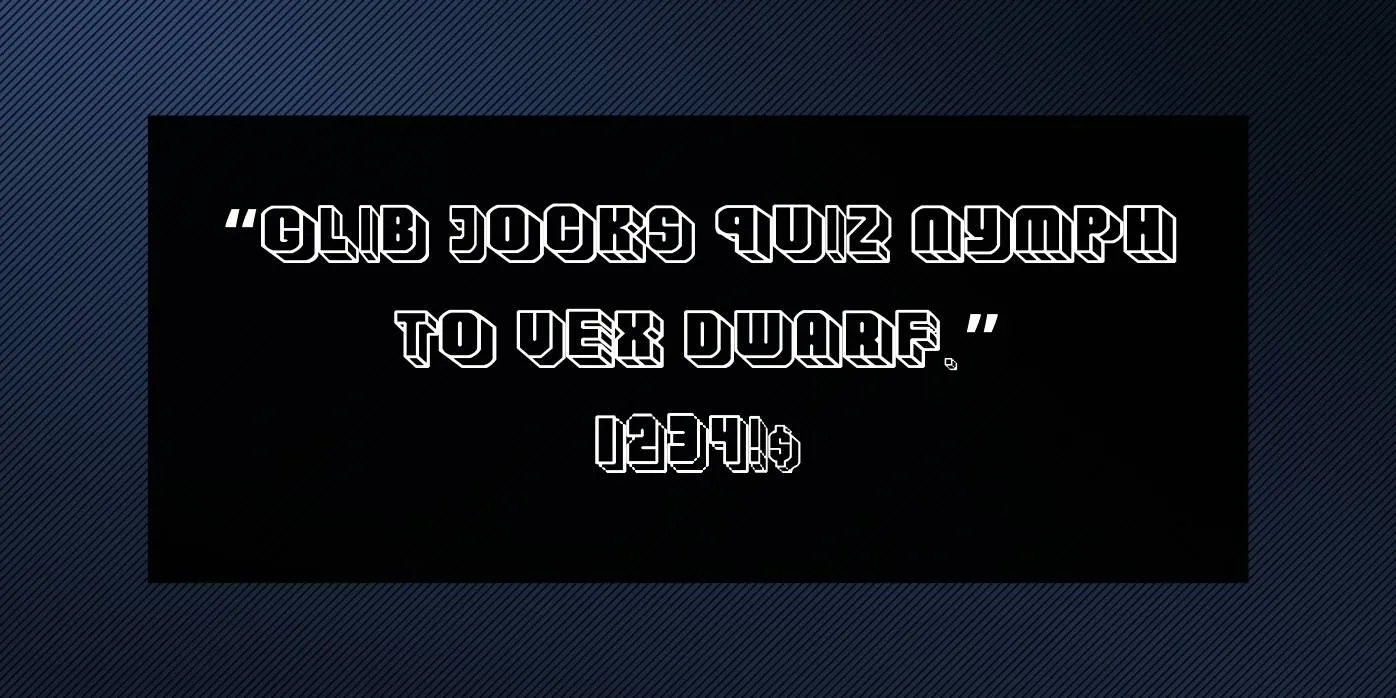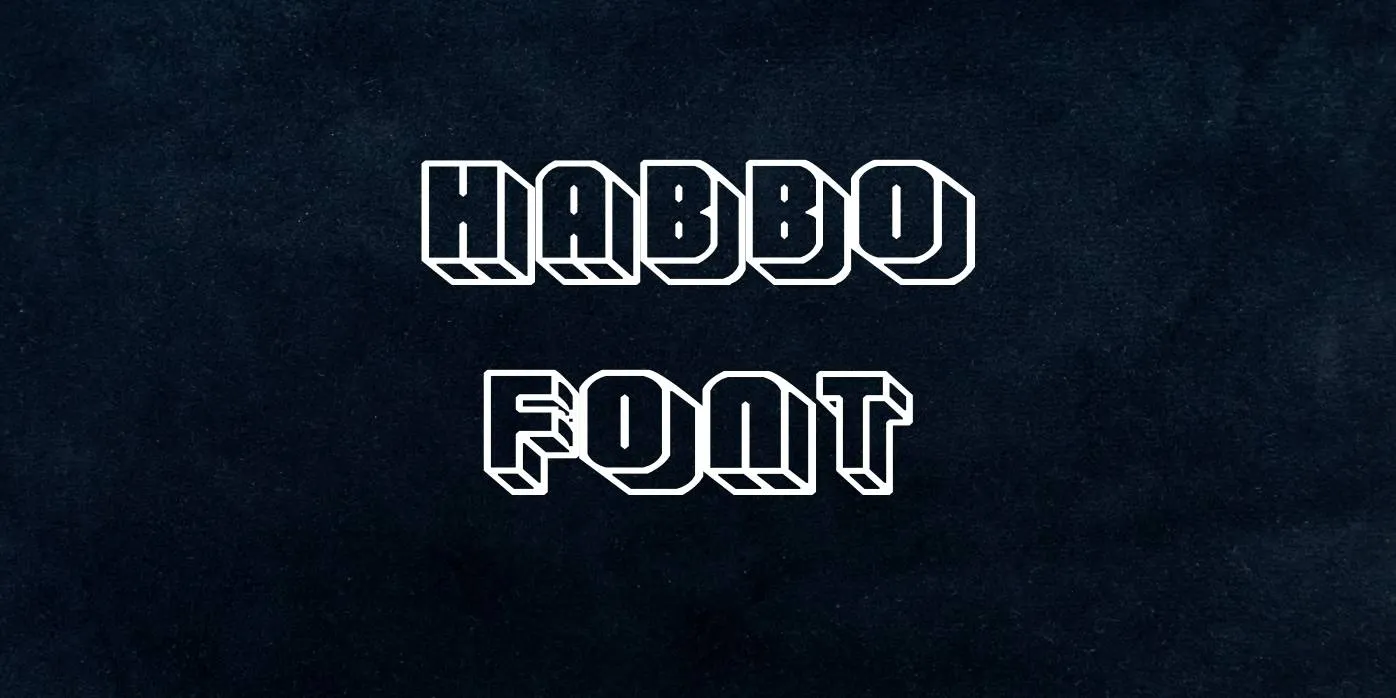
≠Habbo Font
Here we discuss the detail of this interesting font named Habbo Font. Habbo Font is a Display font with a 3D look. It was designed by Juanplav. All rights are reserved by Juanplv.
This font was created on 03-02-2007 and contains 113 characters, 97 glyphs, and 2048 units per Em. The weight of the font is Semi-Light and the width of the font is Medium (Normal). The pattern nature of this font is regular and the posture of this font is Upright. It can also be used by an online generator tool to give a 3d look to simple text. Copy-paste can also be used by this font to make your work easier and more efficient.